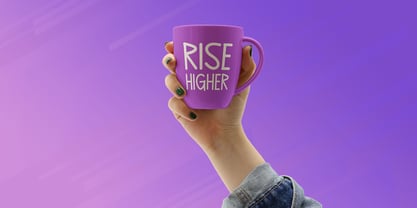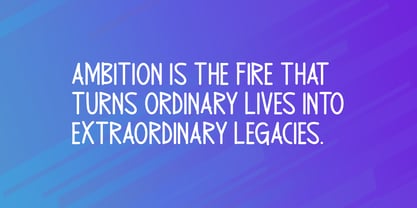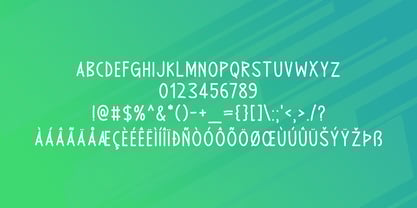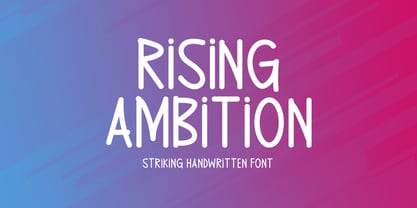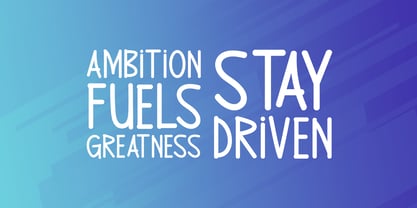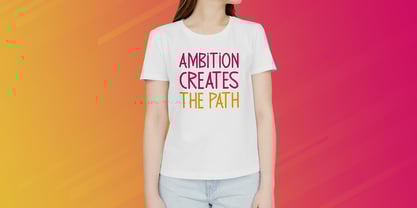
Rising Ambition
by Seemly Fonts
The Rising Ambition Font Family was designed by Md. Sohail Bhuiyan and published by Seemly Fonts. Rising Ambition contains 1 styles. More about this family
Rising Ambition is a captivating handwritten font designed to bring energy and personality to your creative projects. With its striking, free-flowing style, this font is perfect for enhancing anything from branding and packaging to apparel, web design, promotional materials, posters, album covers, and digital graphics. Whether used in a bold logo or a subtle headline, Rising Ambition adds a touch of originality and handcrafted flair that leaves a lasting impression.
Designers: Md. Sohail Bhuiyan
Foundry: Seemly Fonts